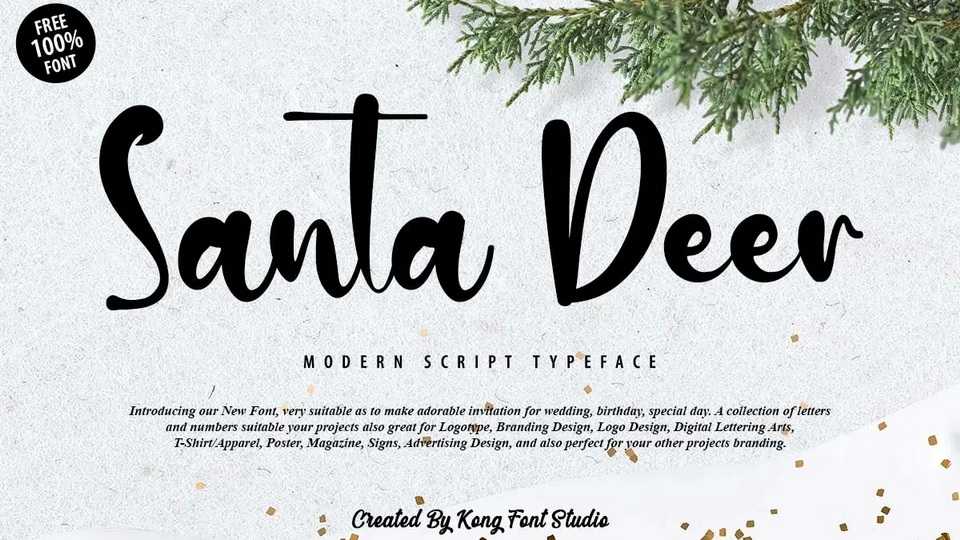
Download Santa Deer font, a lovely handcrafted font painted with a inky brush. Santa Deer font is great for branding and packaging, especially the design that needs the natural writing feel.
Designer: Kong Font Studio